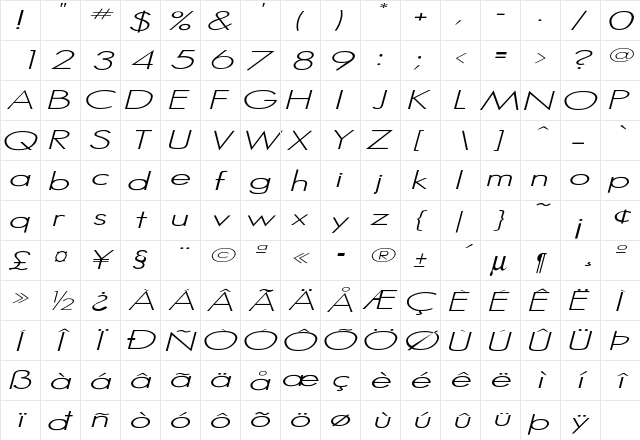
Hemet Italic
Design Context for Hemet Typeface
Hemet is a composed and adaptable typeface that performs quietly and consistently across a wide range of design contexts. Its italic angle brings a sense of urgency and motion to the letterforms.
Pro Tip: Try Hemet for annotation and caption copy alongside an upright companion — the contrast in angle creates a dynamic but ordered typographic system.